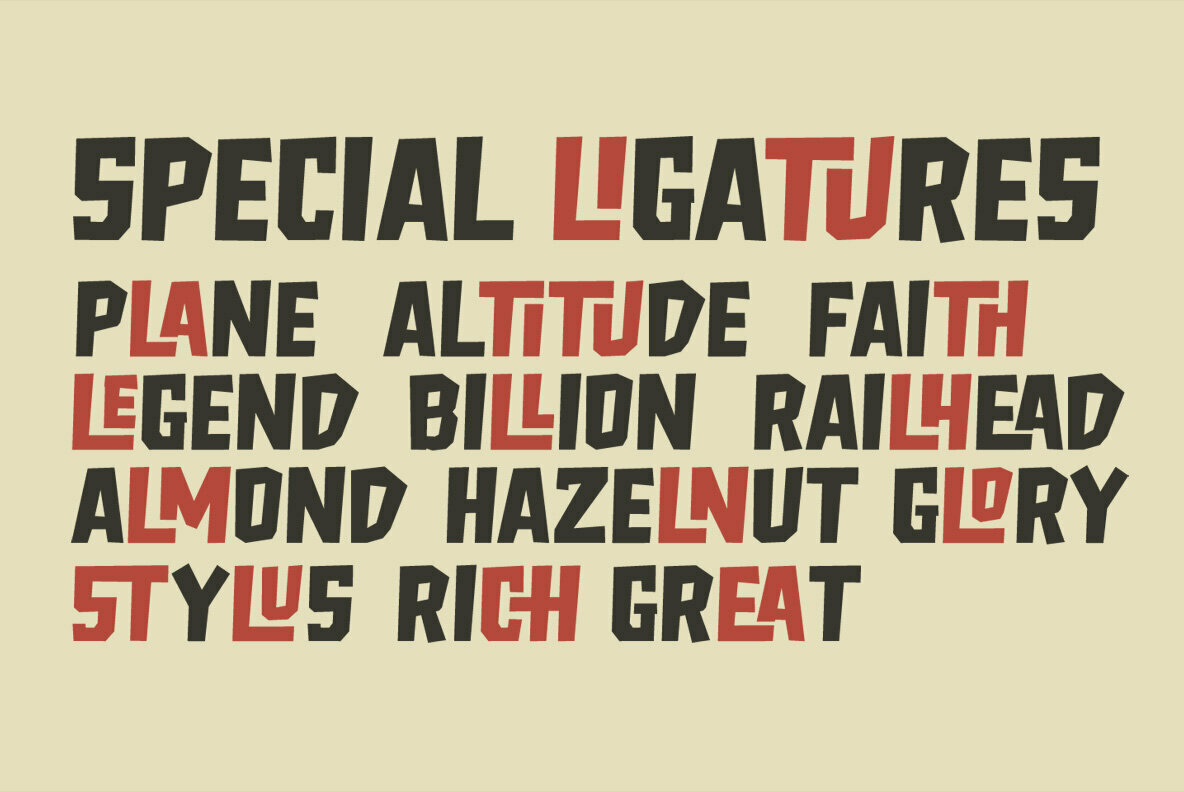
Fulgora Font Free Download
Fulgora Font is perfect for electrical engineering branding, lightning protection services, high-voltage equipment marketing, energy company communications, electrical contractor signage, power generation graphics, storm tracking systems, and dynamic energy campaigns.
What makes Fulgora Font exciting is its electric power that embodies the raw energy and brilliant intensity of lightning with electrical authenticity and storm-force magnitude. The font features dynamic letterforms with lightning-inspired proportions and electrifying character that evoke thunder crashes, electrical discharge, and the magnificent power of natural electricity and atmospheric energy. Its distinctive electric styling and storm appeal communicate power, intensity, and electrical mastery, making every message feel charged with lightning energy and touched by the brilliant force of electrical storms and atmospheric power.
The Fulgora Font family includes regular weight with uppercase and lowercase letters, numerals, punctuation marks, and comprehensive electrical symbols. Premium versions often feature lightning alternates and electric elements that enhance the dynamic, high-voltage aesthetic perfect for electrical and energy applications.
This electrifying powerful typeface brings instant energy and electrical credibility to any lightning-focused project. Fulgora Font Free Download delivers exceptional results for electrical companies and energy organizations seeking to communicate electrical power, storm intensity, and lightning expertise to electrical professionals and energy enthusiasts.
The electric character of Fulgora Font makes it particularly valuable for electrical contractors, lightning protection companies, and power generation facilities. Its excellent visibility ensures electrical messaging and energy communications capture attention while maintaining the distinctive lightning aesthetic that appeals to professionals seeking authentic electrical experiences and storm-force energy solutions.
Electrical industry marketers appreciate how Fulgora Font effortlessly conveys electrical authenticity and lightning power. The font's dynamic proportions and electric details create powerful brand materials that establish connections with audiences who value electrical innovation, storm research, and the brilliant intensity of lightning energy and electrical mastery.
The versatile power of this typeface extends to meteorological research, electrical safety education, and renewable energy where lightning authenticity enhances electrical credibility and storm appeal. Fulgora Font Free Download provides creative professionals with an essential tool for developing memorable, energy-driven designs that resonate with audiences who embrace electrical innovation, lightning research, and the dynamic power of electrical storms in their energy and electrical experiences.